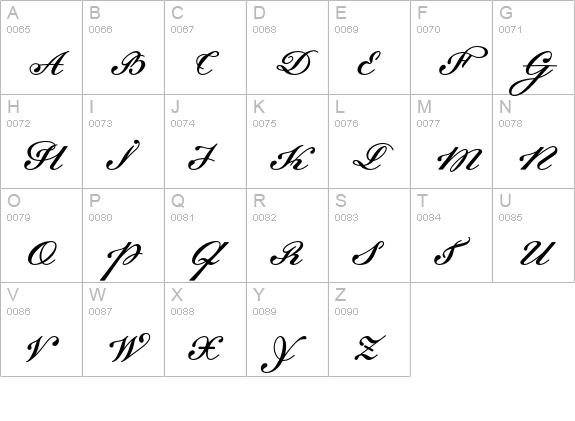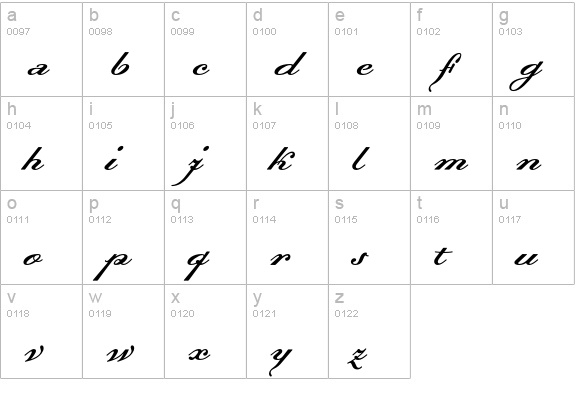
DallianceScriptDisplay Font Details
Introducing DallianceScriptDisplay font, a stunning and versatile typeface that exudes elegance and sophistication. Designed with meticulous attention to detail, this font is perfect for adding a touch of sophistication to any design project. DallianceScriptDisplay font features a beautiful script style, with graceful curves and intricate letterforms that capture the essence of handwritten script. Its unique and enchanting character sets it apart, making it a standout choice for wedding invitations, branding materials, logos, and more. Not only does DallianceScriptDisplay font deliver on aesthetics, but it also offers exceptional readability. Each letter is crafted with precision, ensuring legibility even at smaller sizes. This font is truly a harmonious blend of artistry and functionality. And the best part? DallianceScriptDisplay font is available for free! That's right, this exquisite typeface can be freely downloaded at FontsMarket.com. Whether you're a professional designer or a casual enthusiast, this font is accessible to all, allowing for limitless creativity without breaking the bank. So why wait? Enhance your designs with the captivating allure of DallianceScriptDisplay font. Download it today and embark on a journey of artistic expression, all with the convenience of a free and easily accessible font.